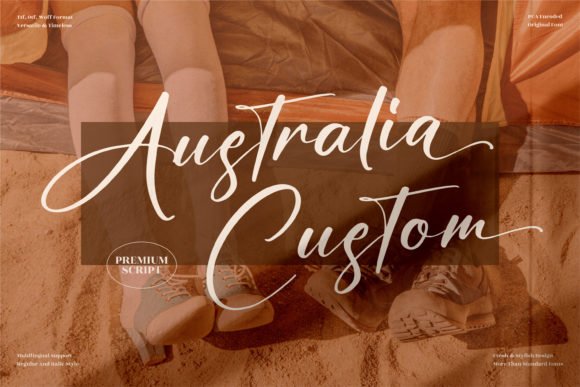
Introduction to Australia Custom Font
Australia Custom is a lovely script font featuring charming, playful characters that seem to dance along the baseline.
This font is PUA encoded which means you can access all of the glyphs and swashes with ease .
Key Features of Australia Custom Font